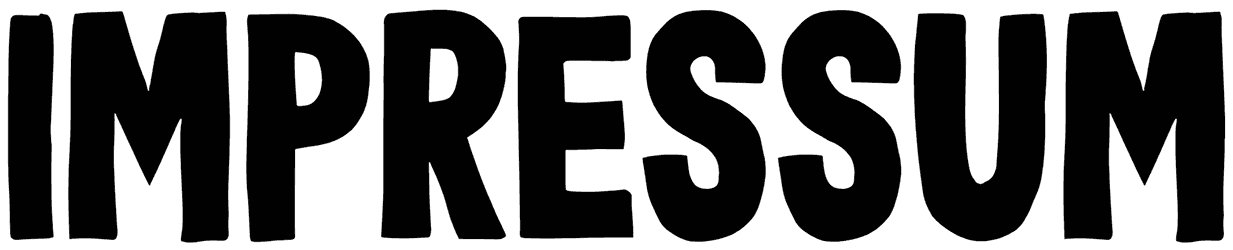
Impressum Font
Impressum, like other fancy fonts, could be a wonderful choice for creating a logo, tattoo, or magazine cover that gets people’s attention. With its four distinct styles, this sans serif font will give your work a distinct edge, while it does not contain lowercase letters. Check out our ever-expanding selection to receive first dibs on all the important free stuff you may  ever need